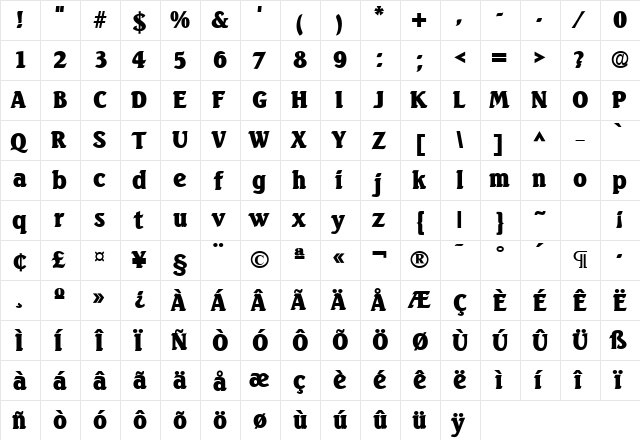
Seabird Heavy SF Bold
Design Context for Seabird Heavy SF Typeface
Seabird Heavy SF is a composed and adaptable typeface that performs quietly and consistently across a wide range of design contexts. The heavy weight commands attention and anchors typographic hierarchies.